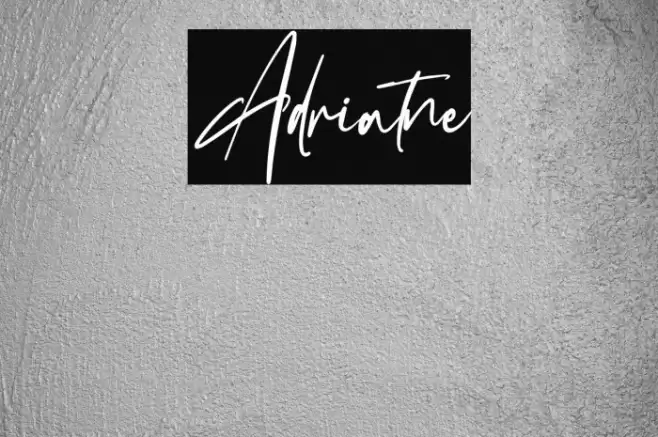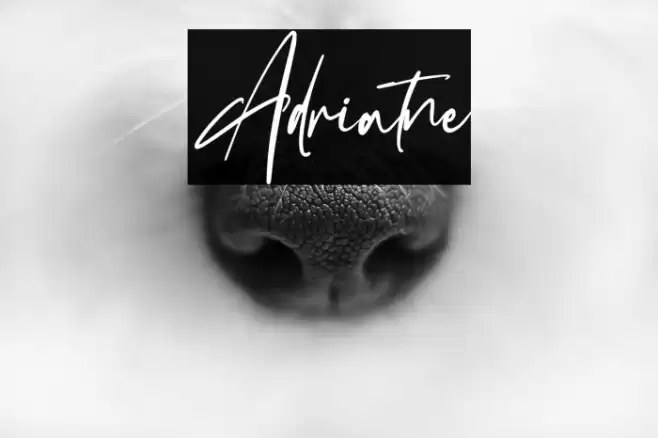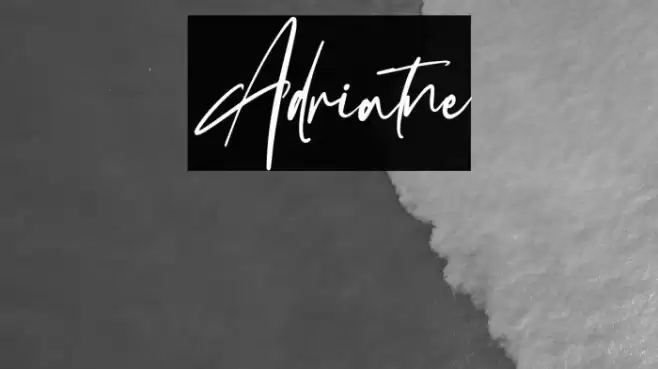
Adriatne Font
Adriatne Description
This font features an elegant, flowing script style that mimics natural handwriting. The uppercase letters are tall and slightly slanted, with smooth, continuous strokes that create a sense of fluidity and grace. The lowercase letters maintain a consistent style, with elongated ascenders and descenders that add to the font's overall elegance. Numbers and special characters are designed to match the script's aesthetic, ensuring a cohesive look across all text. The font's delicate lines and artistic flair make it suitable for creative and sophisticated designs.
An elegant, flowing script font with a natural handwriting style from Regular fonts.
- Proposed Projects: Ideal for wedding invitations, greeting cards, branding, and logo design.
- Overall Style: Elegant, Artistic
- Use Case: Logos, Invitations, Decorative text